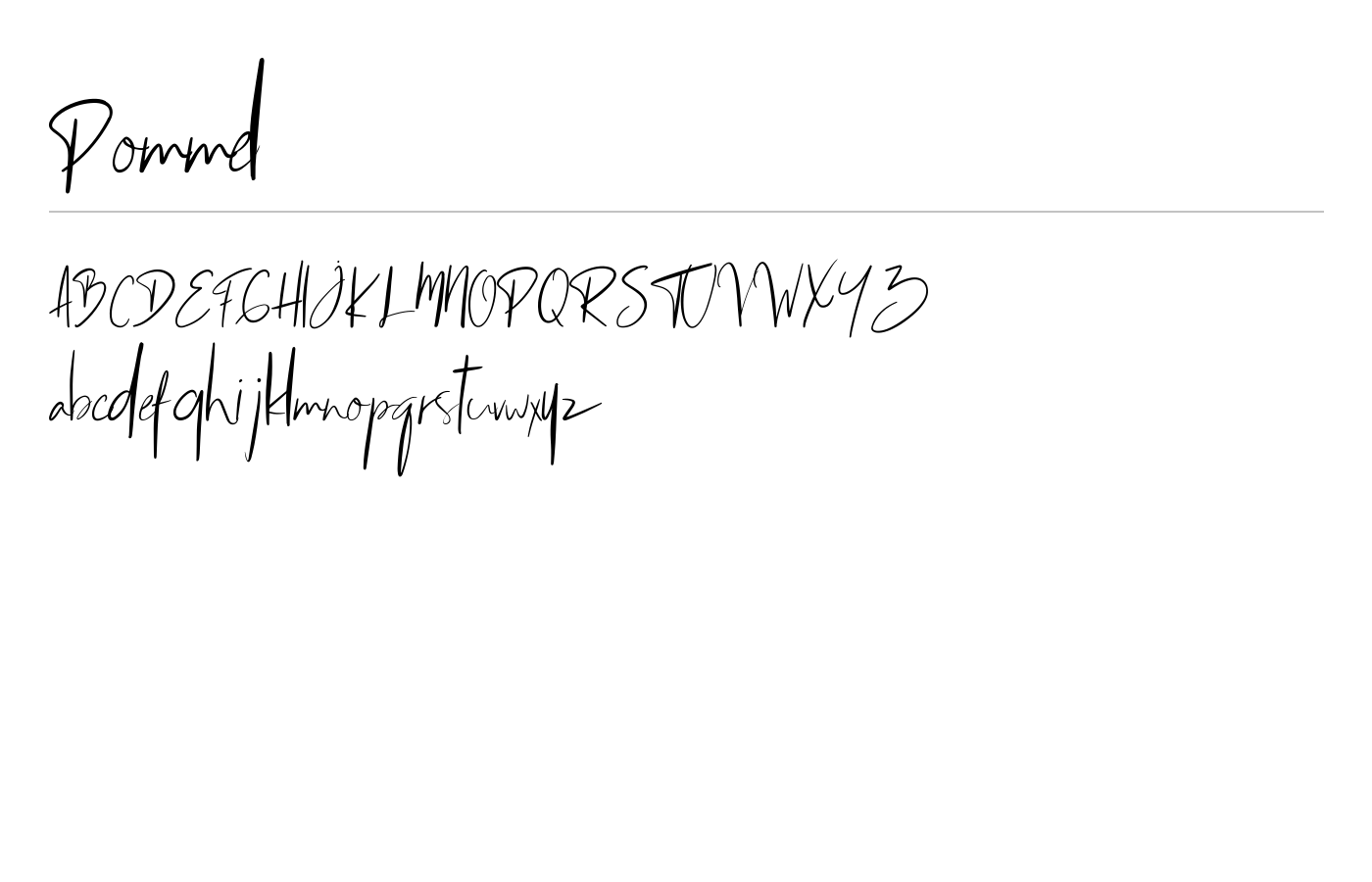
Pommel is a delicate, handwritten script font with a tall and narrow structure, featuring thin, uneven strokes that give it a casual and personal touch. Its airy spacing and playful letterforms make it ideal for creative projects, invitations, and branding that seek a whimsical, artistic, or approachable feel. This font works best in headlines or short phrases where its unique character can truly stand out.
Pommel Font
About Pommel Font
| Font family | Pommel Font |